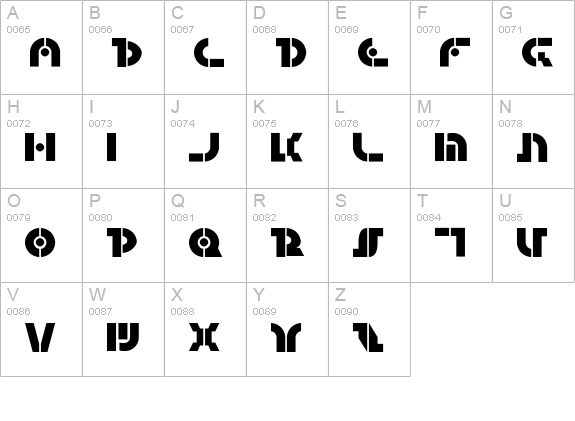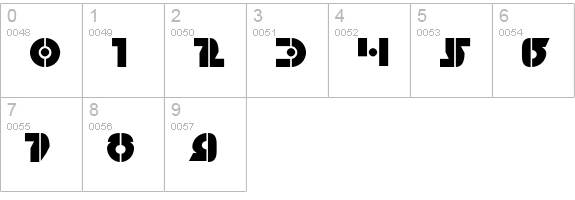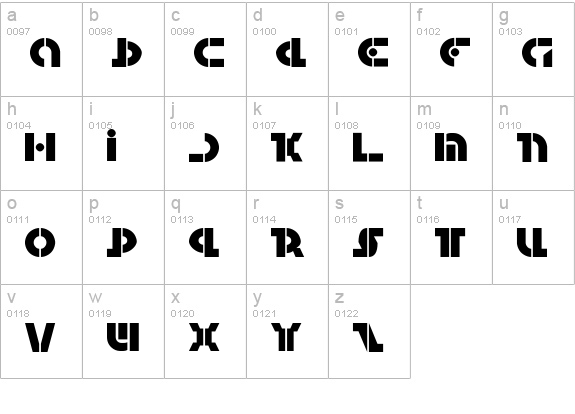
Questlok Font Details
Introducing Questlok, a stunningly versatile and captivating font that will bring a touch of elegance and uniqueness to your designs. With its intricate and beautifully crafted letterforms, Questlok stands out as a true work of art in the realm of typography. This font's enchanting curves and sharp edges create a harmonious balance, making it ideal for both bold headlines and delicate body text. Whether you're designing a striking logo, a captivating website, or an eye-catching poster, Questlok will effortlessly elevate your project to new heights of sophistication. What's truly remarkable about Questlok is that it's not only visually stunning, but also freely available for download at FontsMarket.com. Yes, that's right - this incredible font can be yours, completely free of charge. FontsMarket.com is renowned for offering a vast collection of high-quality fonts, and Questlok is just one of many exceptional options you can find on their platform. Freely accessible to designers, creatives, and enthusiasts alike, Questlok allows you to express your creativity without any limitations. Its extensive character set includes a wide range of punctuation marks, numerals, and special characters, ensuring that you have everything you need to bring your vision to life. Crafted with meticulous attention to detail, Questlok is designed to deliver flawless legibility across various mediums, whether it be print or digital. Its versatility and adaptability make it suitable for a myriad of projects, from elegant invitations and branding materials to editorial layouts and packaging designs. So, why wait? Unleash your creativity and discover the endless possibilities that Questlok has to offer. Download this remarkable font for free at FontsMarket.com and embark on a typographic journey that will leave a lasting impression on your audience. With Questlok, your designs will exude sophistication, elegance, and a touch of magic that sets them apart from the rest.